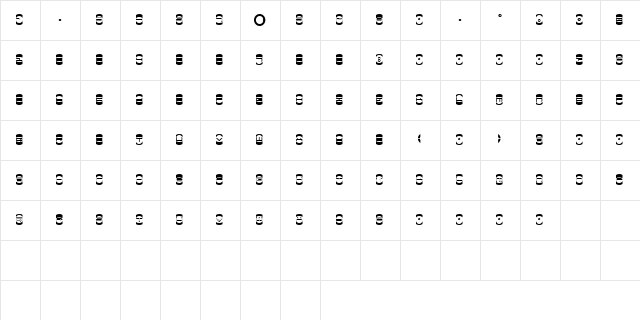
Mister Easy Regular Font Preview
Mister Easy Regular
Mister Easy Regular Font Details
Design Context for Mister Easy Typeface
Mister Easy is a composed and adaptable typeface that performs quietly and consistently across a wide range of design contexts.
Pro Tip: Use Mister Easy in both headline and body roles to test its range before committing to a single application.